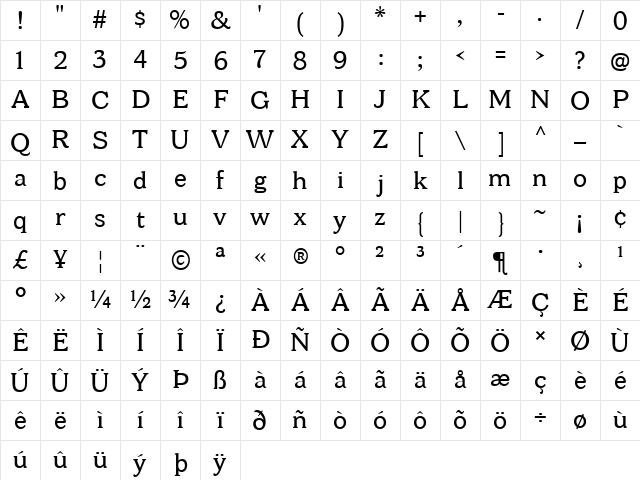
Bonobo Regular
Design Context for Bonobo
Bonobo is a composed and adaptable typeface that performs quietly and consistently across a wide range of design contexts.
Pro Tip: Use Bonobo in both headline and body roles to test its range before committing to a single application.